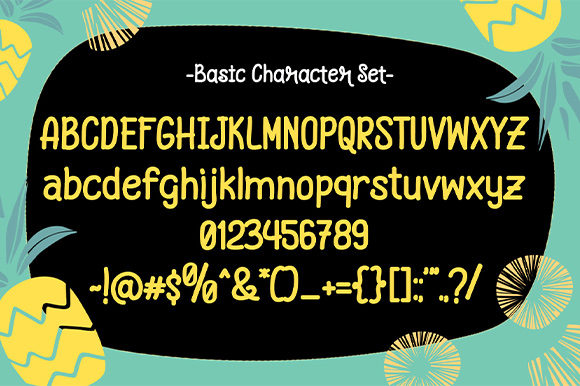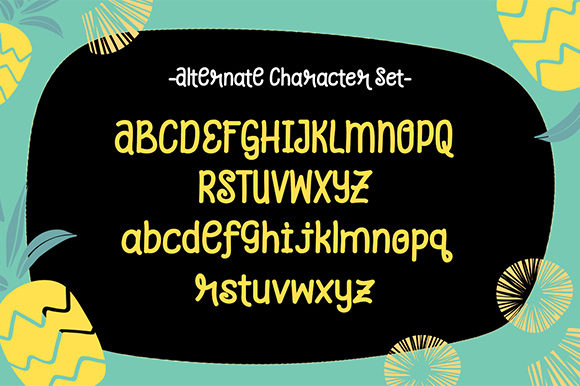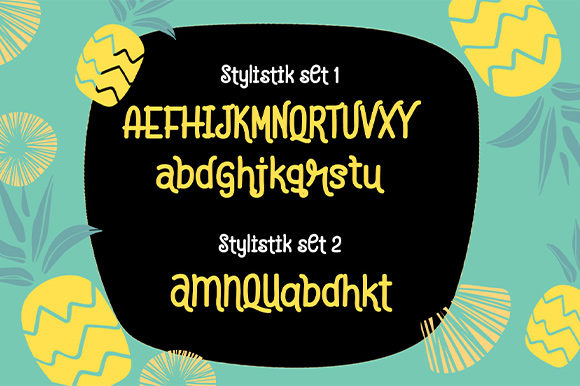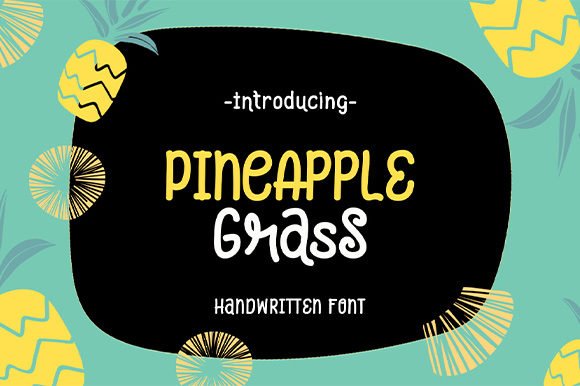
Introduction to Pineapple Grass Font
Pineapple Grass is a sweet handwritten font, carefully handcrafted to become a true favorite.
Its casual charm makes it appear wonderfully down-to-earth, readable and, ultimately, incredibly versatile Pineapple Grass will look outstanding in any context, whether it’s being used on busy backgrounds or as a standalone headline.